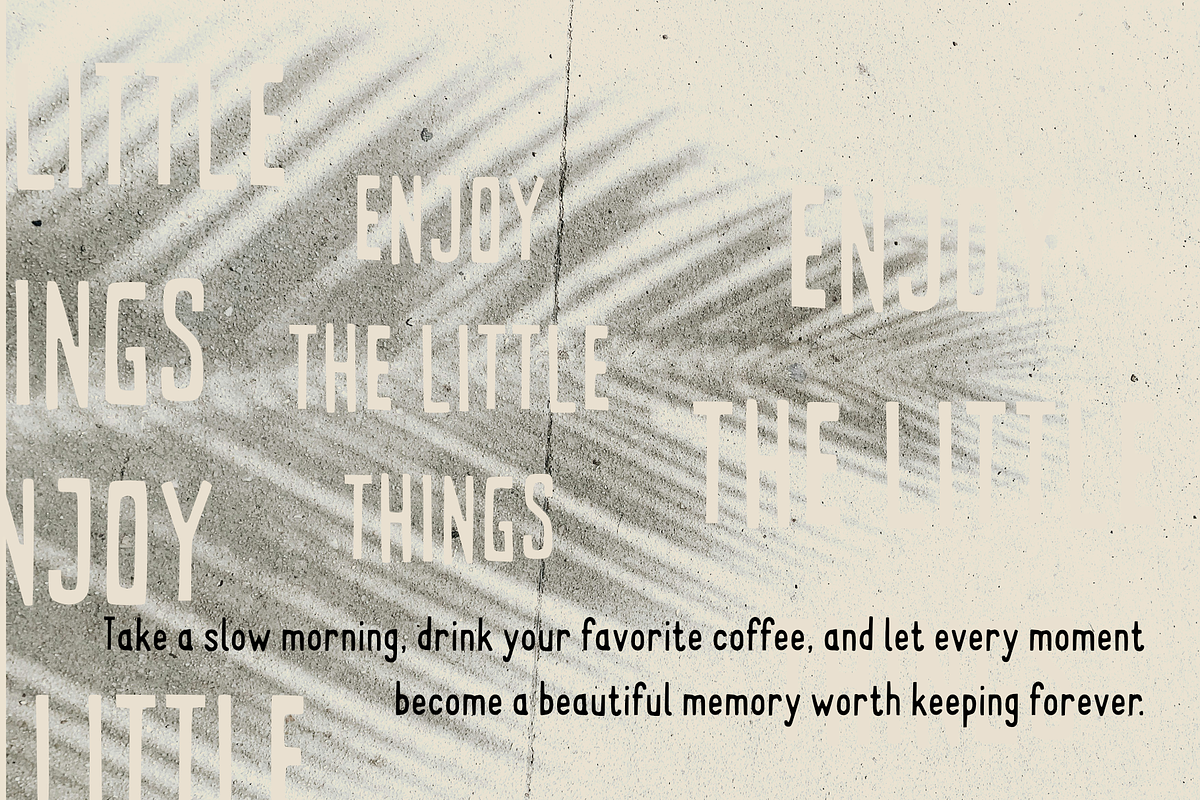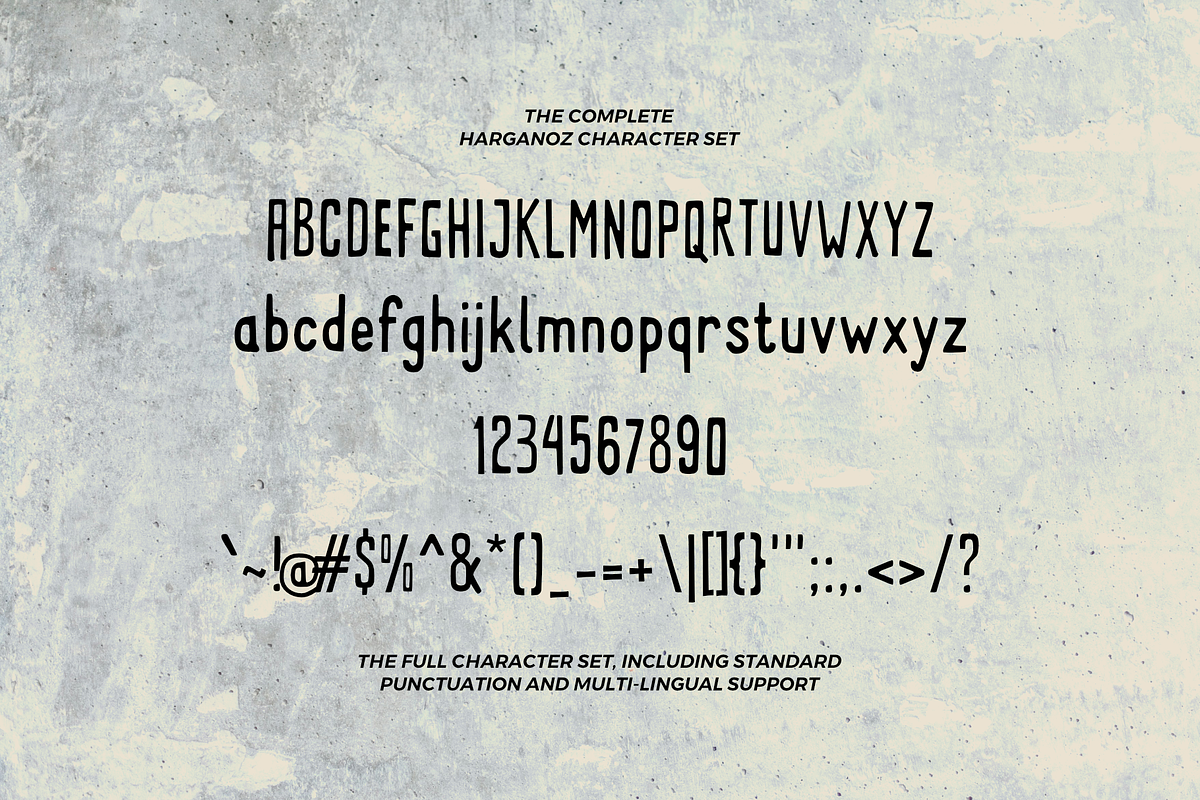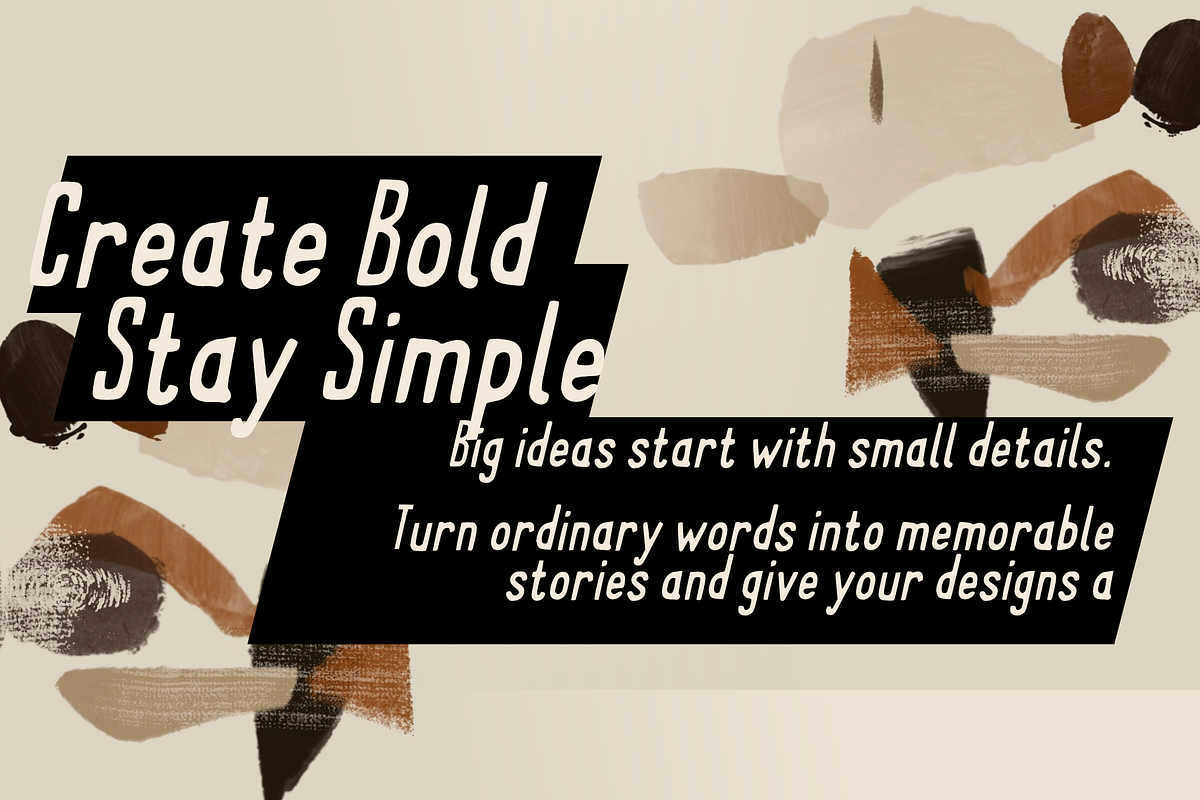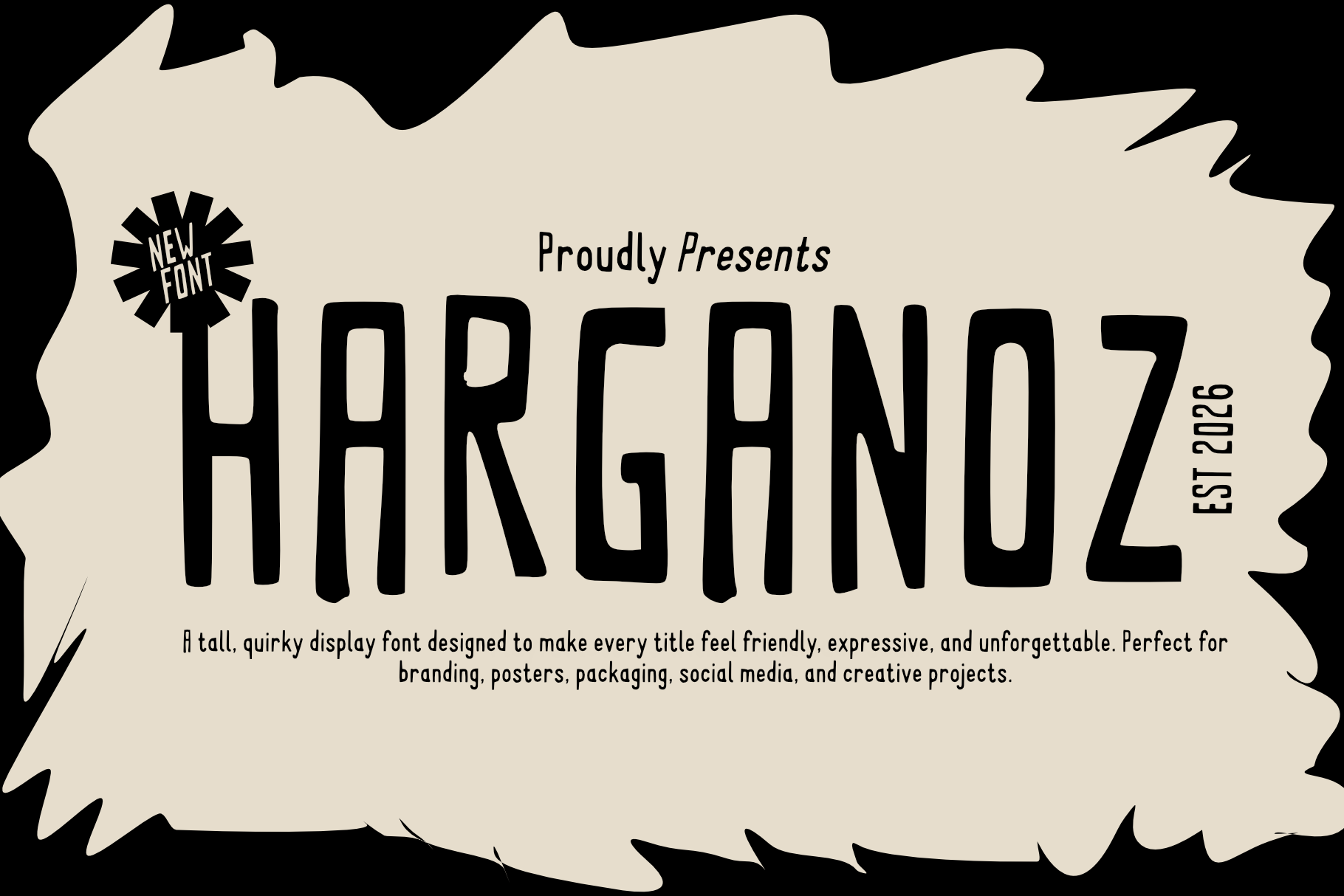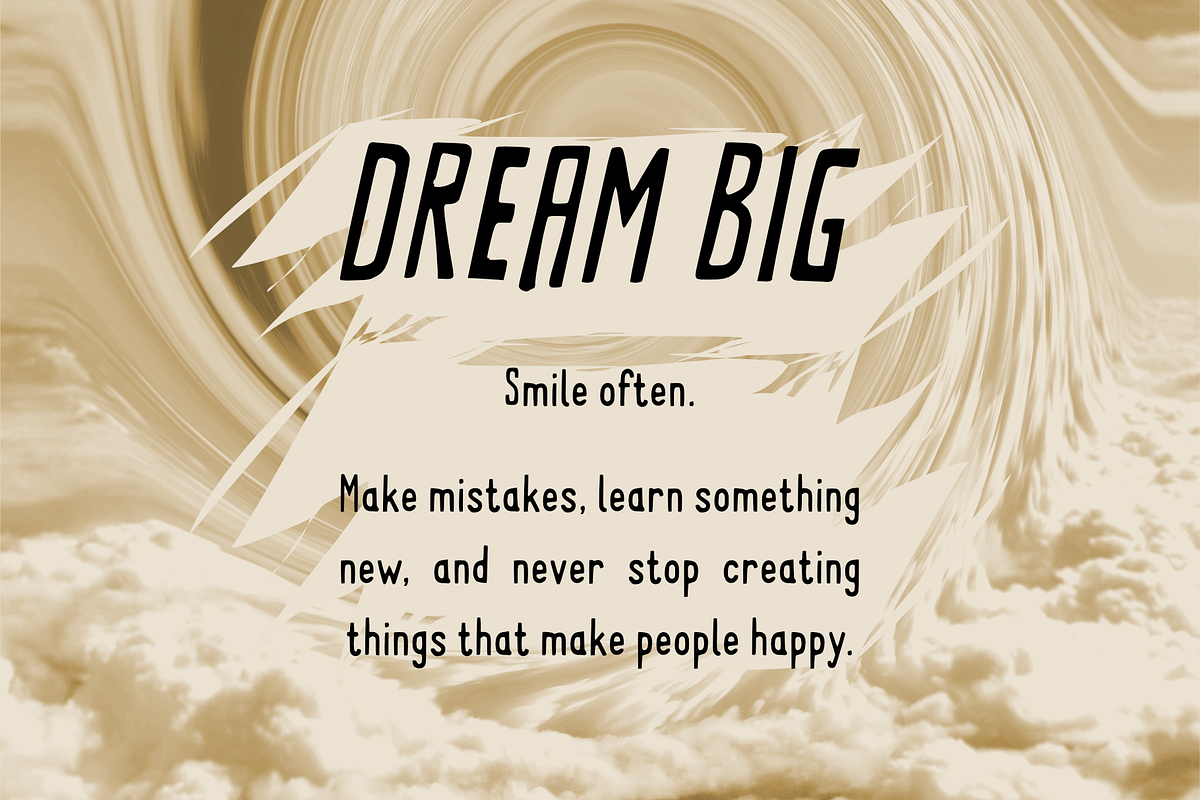
Harganoz Tall Handmade Display Font
HARGANOZ is a playful and handcrafted display font that combines tall letterforms with a quirky personality. Designed to create a strong visual impact, this font brings a friendly, modern, and artistic feel to any project. Its unique hand-drawn appearance makes it perfect for branding, posters, packaging, social media content, book covers, children's products, café menus, and creative merchandise. HARGANOZ adds warmth, charm, and character while keeping your designs clean, memorable, and easy to recognize.
Regular & Italic